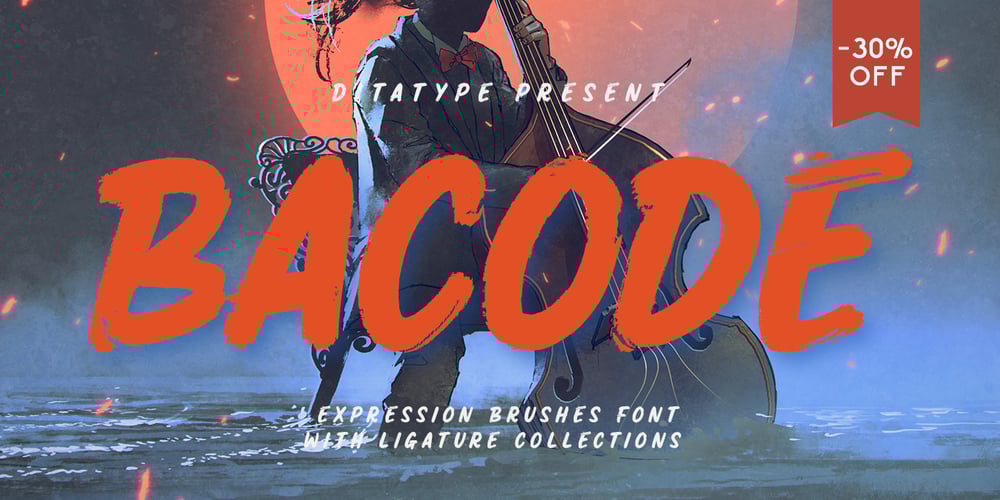
Bacode Font Family was designed by Donis Miftahudin and published by Ditatype. Bacode contains 1 styles and family package options. Your design tells who you really are and should represent your personality. Without the right font, it will be hard to be prominent and to impress your audience. Therefore, Bacode is the answer to your necessity.Bacode is a font type to produce manual brush-looking displays to show natural, casual, informal impressions to make people feel close to the brand or design displayed. Its letter proportions are equal, yet high in contrast to be more visually attractive. However, brush fonts are less legible in lengthy texts. As a result, they are more suitable to apply for short texts. You can also enjoy the available features here.Features: Multilingual Supports PUA Encoded Numerals and Punctuations Bacode fits best for various design projects, such as brandings, posters, banners, headings, magazine covers, quotes, invitations, name cards, printed products, merchandise, social media, etc. Find out more ways to use this font by taking a look at the font preview.Thanks for purchasing our fonts. Hopefully, you have a great time using our font. Feel free to contact us anytime for further information or when you have trouble with the font. Thanks a lot and happy designing.